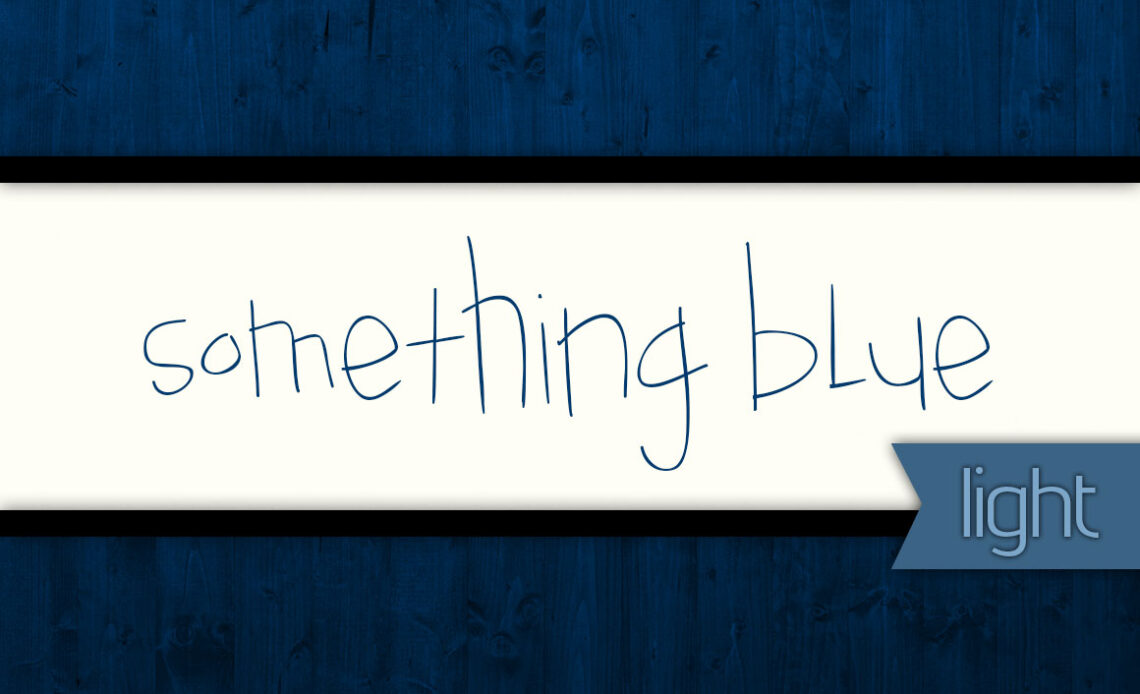
Behold the Something Blue Light Font, a captivating script font that dances across your screen with its unique charm and character. Let your creativity soar as you explore the endless possibilities this font offers, from playful invitations to whimsical posters. Its quirky yet legible nature makes it perfect for adding a touch of personality to any project.
Immerse yourself in a world of boundless creativity as you utilize Something Blue Light Font to craft stunning cards that are sure to leave a lasting impression. Its enchanting curves and playful strokes will transform your words into works of art, capturing the attention of all who behold them. Unleash your inner artist and let your imagination run wild as you design one-of-a-kind cards that reflect your unique style and personality.
With Something Blue Light Font, you'll embark on a joyous crafting adventure, creating projects that exude charm and cheerfulness. Bring your ideas to life as you design personalized merchandise, from eye-catching t-shirts to heartwarming mugs. Let your creations spread joy and positivity wherever they go, leaving a trail of smiles in their wake. Embrace the magic of Something Blue Light Font and let your creativity shine!
Whether you're a seasoned designer or just starting out, Something Blue Light Font is your perfect companion. Its user-friendly nature makes it accessible to artists of all skill levels. Dive into the world of digital lettering and typography, experimenting with different styles and techniques. Discover the joy of creating something truly unique and special.
Join the growing community of creatives who have embraced the magic of Something Blue Light Font. Explore a diverse collection of projects and ideas, and let your creativity soar to new heights. Step into a realm where imagination knows no bounds, and let your creations bloom into existence, captivating the hearts and minds of all who encounter them.